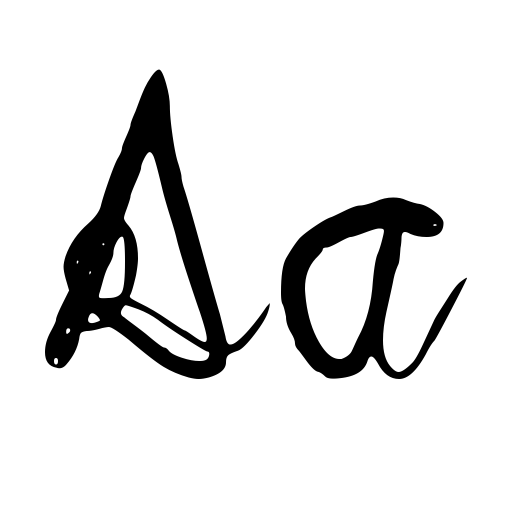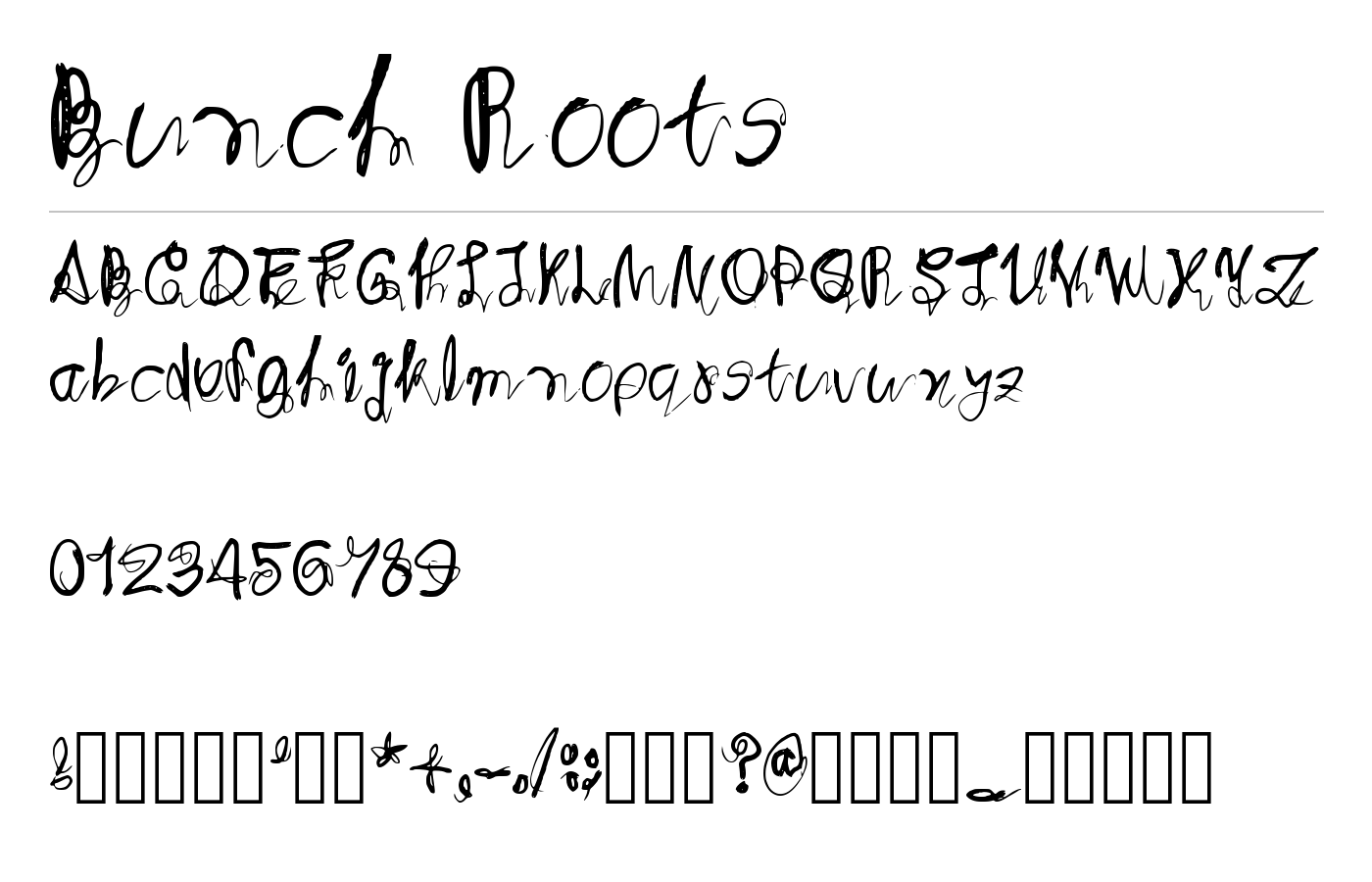
Bunch Roots is a highly expressive handwritten font with an organic, whimsical feel, characterized by irregular, flowing strokes and a playful mix of thick and thin lines. Its unique, slightly chaotic letterforms convey creativity and individuality, making it perfect for artistic projects, personal branding, or playful designs where a casual, natural vibe is desired. This font works best in headlines, logos, or decorative uses where a distinctive, hand-crafted appearance is key.
Bunch Roots Font